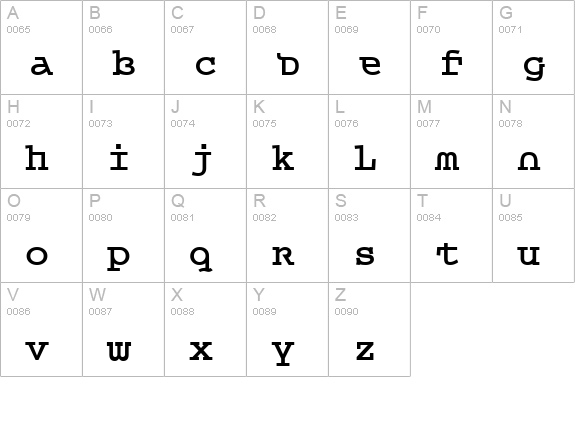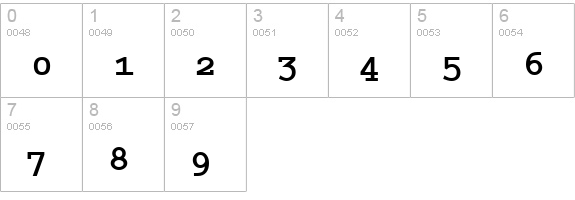
**Queer Theory** is a unique and innovative typeface that challenges traditional design norms and celebrates diversity and inclusivity. Drawing inspiration from the rich history of queer culture and activism, this font embodies a sense of empowerment and liberation. Its bold, striking appearance makes a powerful statement, while its fluid lines and playful curves add a touch of whimsy and creativity. **Queer Theory** is not just a font - it's a bold declaration of individuality and self-expression. Whether used for posters, logos, or social media graphics, this typeface demands attention and invites viewers to question the status quo. Embrace the spirit of defiance and authenticity with **Queer Theory**. Best of all, **Queer Theory** is freely available to download at FontsMarket.com. Get your hands on this cutting-edge typeface and unleash your creativity today!